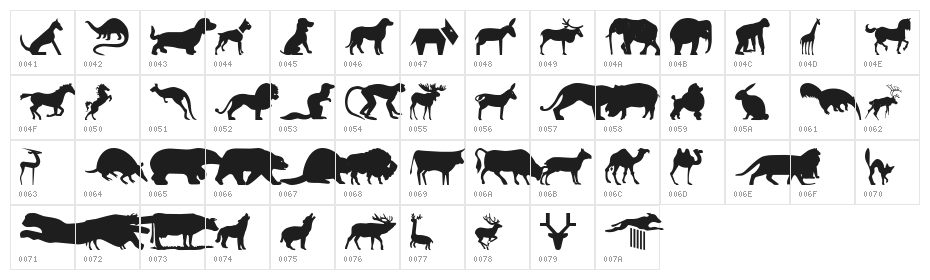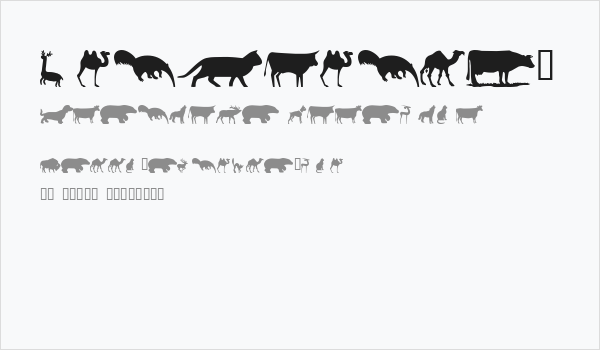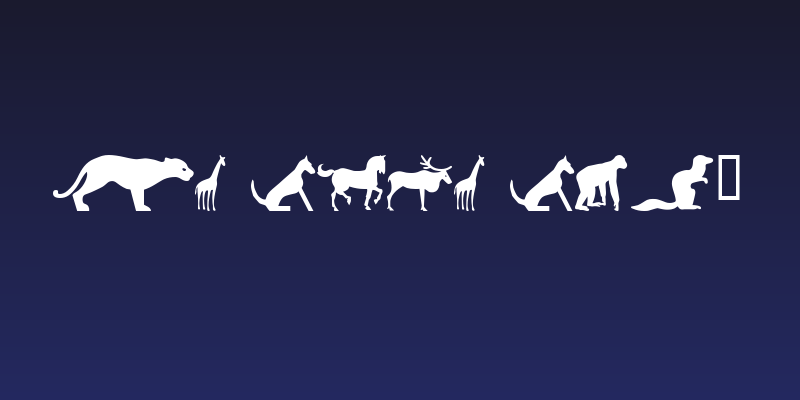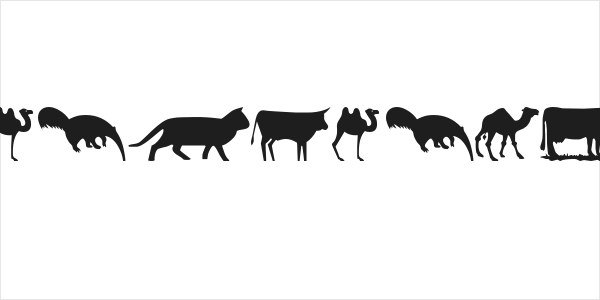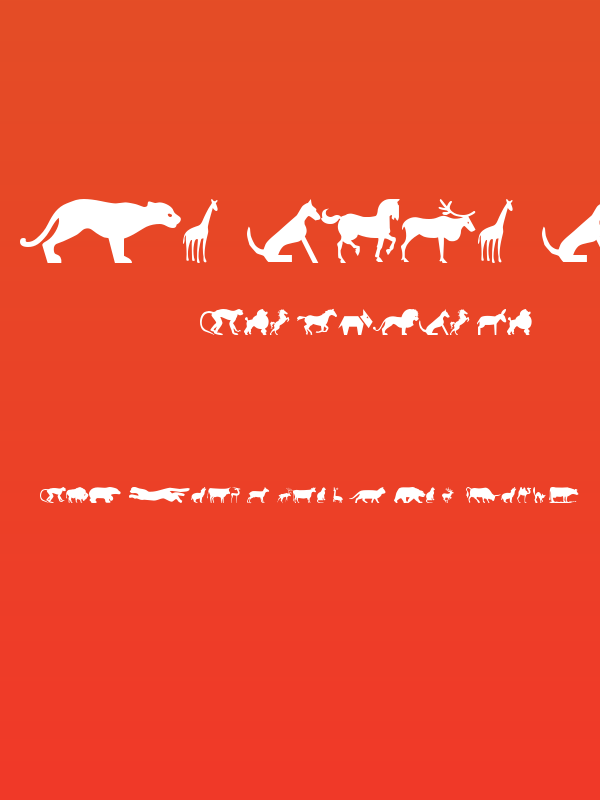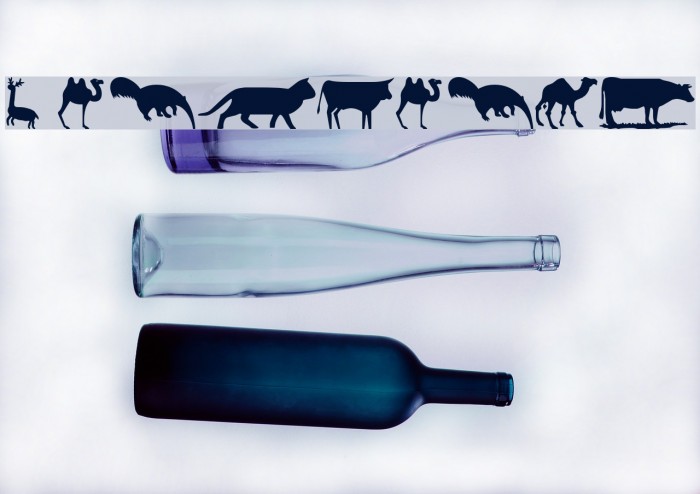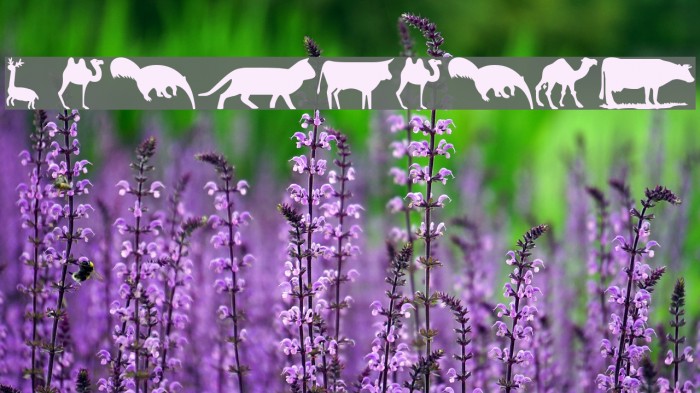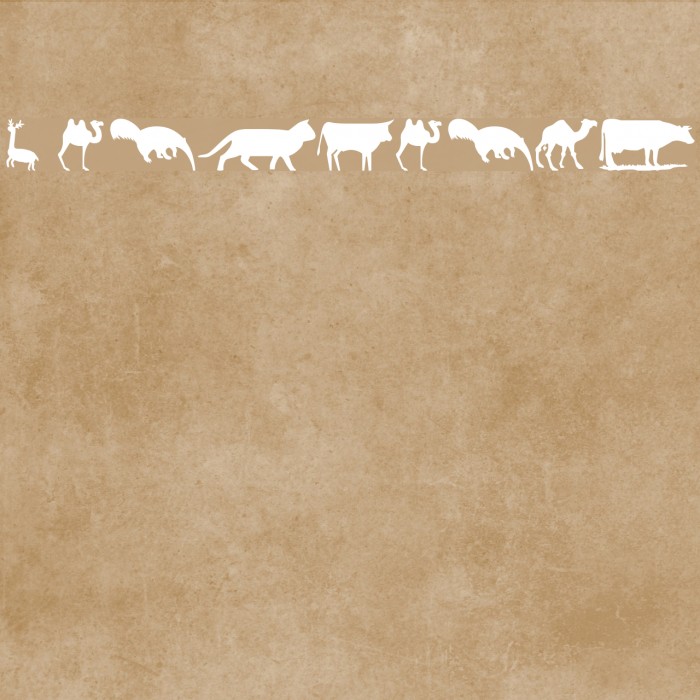
wmanimals2 Font
wmanimals2 Description
A decorative dingbat font featuring solid black silhouettes of various animals in profile, each glyph representing a different animal shape. The style is playful and illustrative, with clear, recognizable forms and no internal detail. The font does not include traditional letterforms but instead uses animal icons for each character.
| Overall Style | Decorative, Playful |
| Use Case | Icons, Decorative elements, Themed graphics |
| Proposed Projects | Children’s books, educational materials, animal-themed posters, creative projects, scrapbooking, decorative headings. |